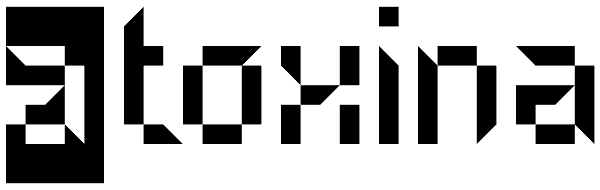
Atoxina
The Atoxina family is designed especially for the burgeoning market of starships and other space cruisers. The fonts are ideal for internal and external use (including zero-g and occasional bursts of cosmic rays), and with their simplified forms are...